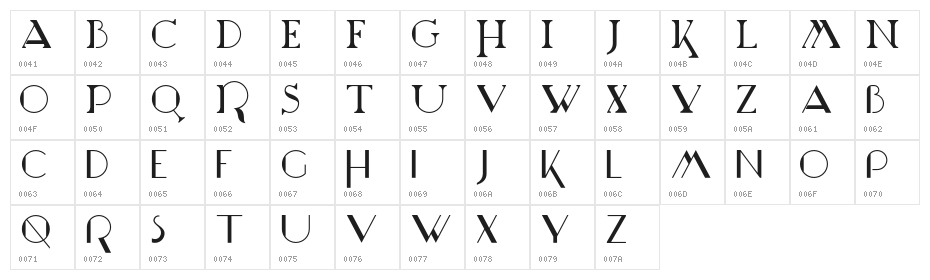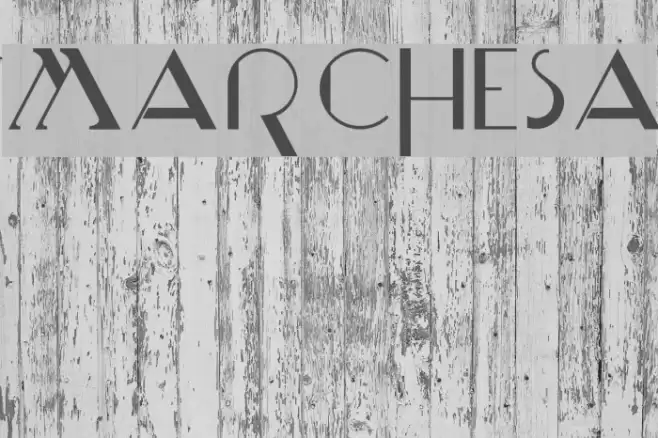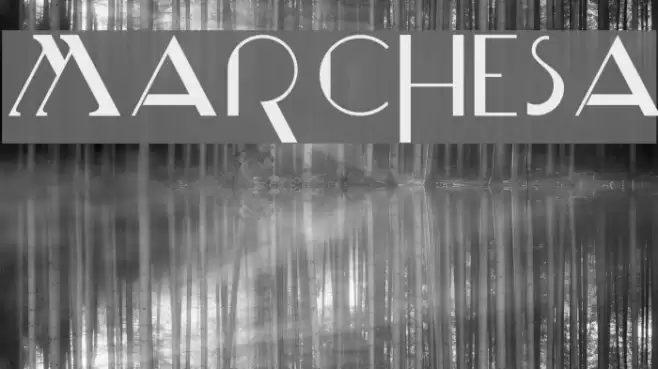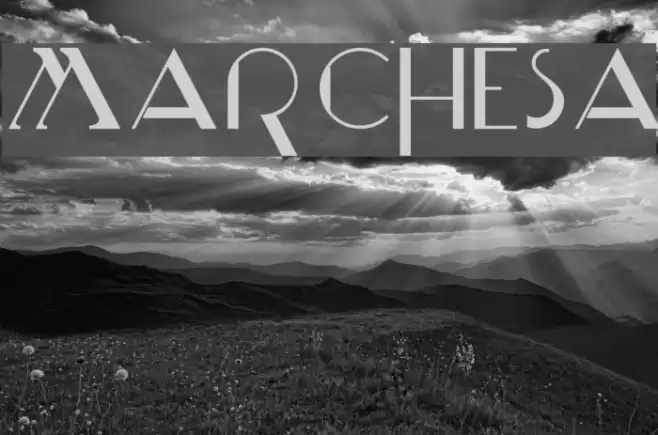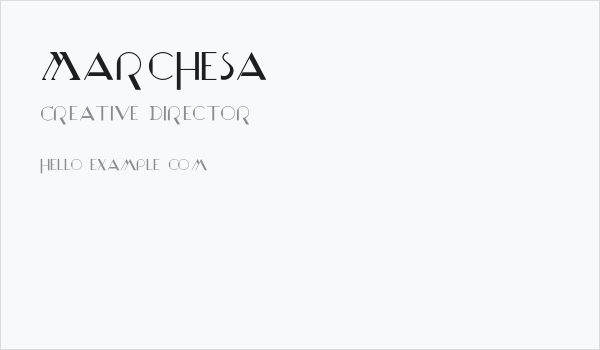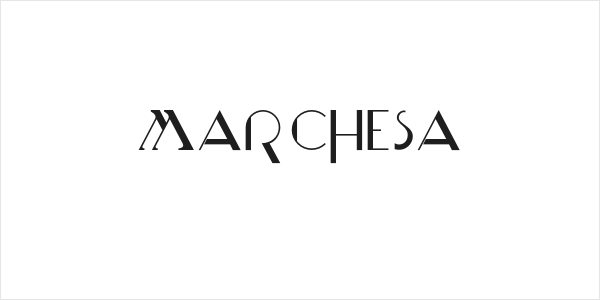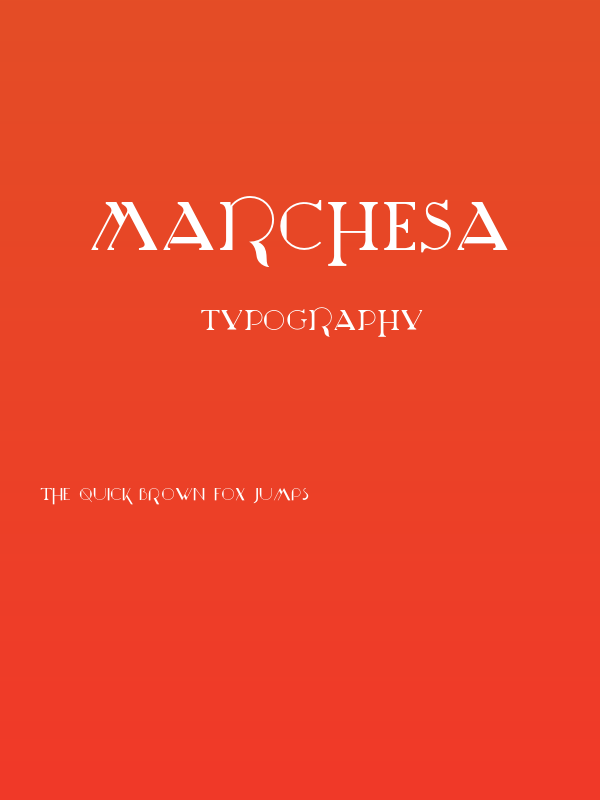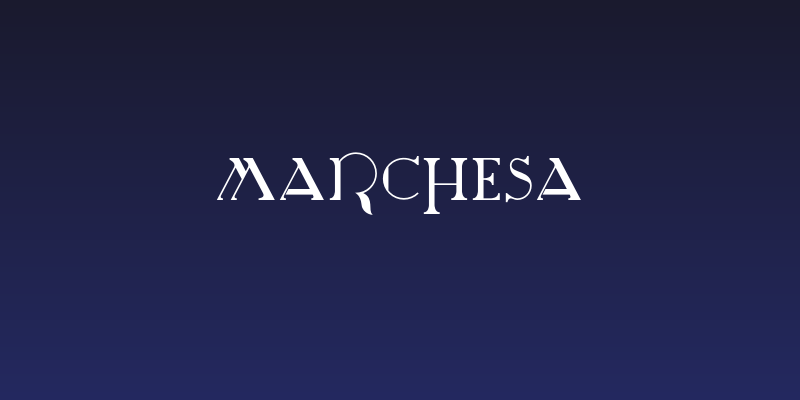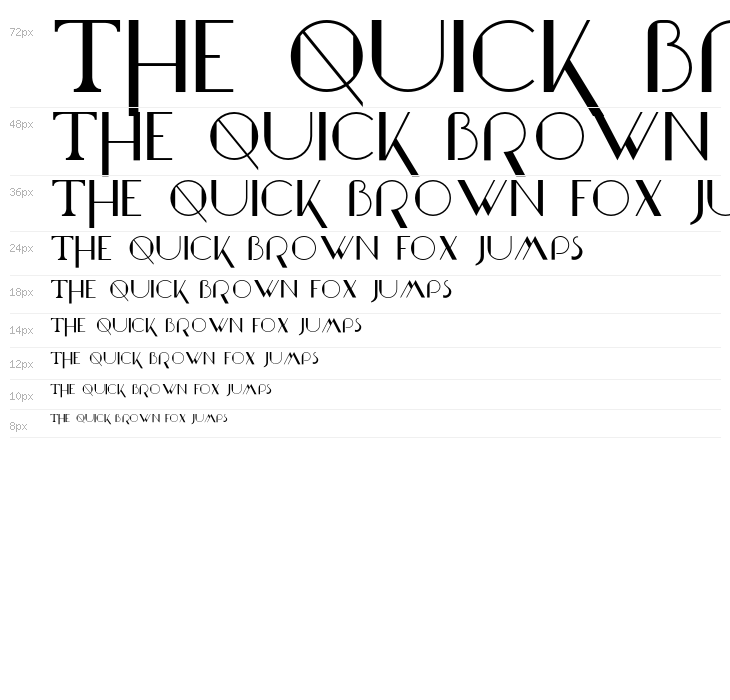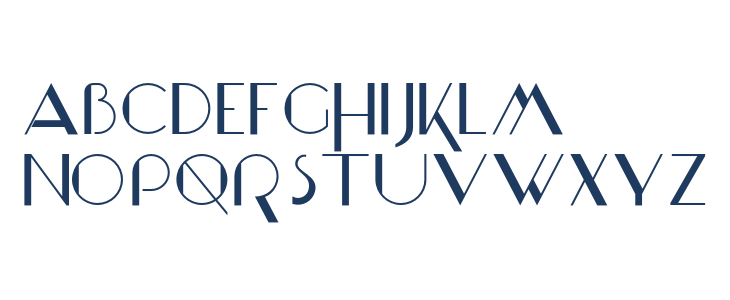
Marchesa Font
Marchesa Description
This font exhibits a striking and elegant design, characterized by its high contrast between thick and thin strokes. The uppercase letters feature unique, angular serifs and sharp edges, giving it a modern and sophisticated appearance. The overall style is both decorative and refined, making it suitable for high-end branding and editorial design. The font's distinctive geometric elements and clean lines create a sense of luxury and exclusivity. Its artistic flair is evident in the creative use of negative space and the subtle curves that soften the otherwise bold structure.
| Proposed Projects | Ideal for luxury branding, fashion magazines, wedding invitations, and high-end product packaging. |